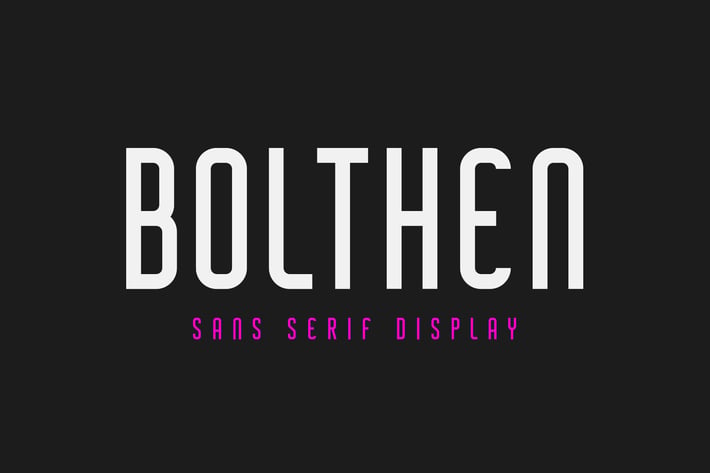
Bolthen - Sans Serif Display Typeface
Introducing of our new product the name is Bolthen Sans Serif Display Typeface. Bolthen good for logotype, label, badge, headline, signature, packaging and any more.
MULTILINGUAL ACCENT :
ŽžŠŒšŸÀÁÂÃÄÅÆÇÈÉÊËÌÍÎÏÐÑÒÓÔÕÖØÙÚÛÜÝßàáâãäåæçèéêëìíîïñòóôõöøùúûüýÿ